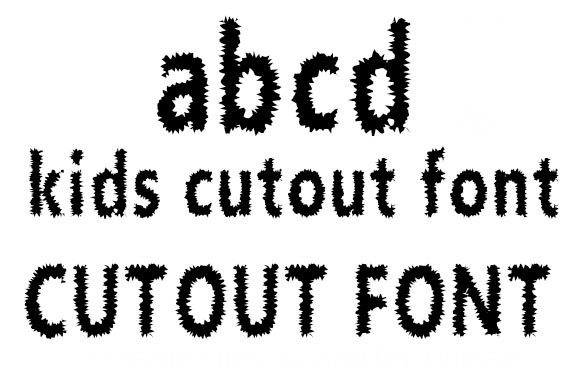
Introduction to Paper Cutout Font
Paper Cutout is a fun and uniquely designed display font.
Whether you are using it for cartoon-related designs, childrenโs games, quotes, titles, brand names, book covers, posters, or just any creation that requires a touch of beauty, this font is a great choice .
Paper Cutout Font offers exceptional quality and versatility, making it a valuable addition to your design toolkit. Whether you’re creating for personal projects or commercial use, Paper Cutout Font delivers professional results.